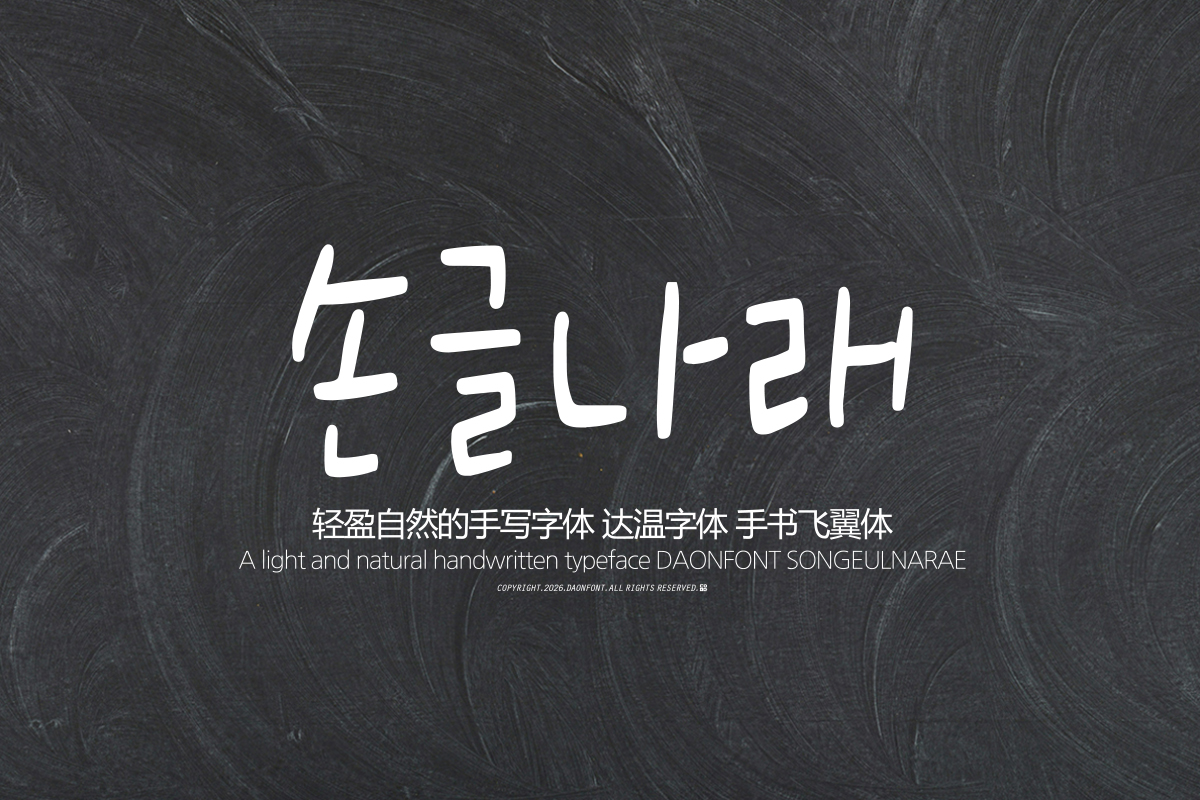
DAON SONGEULNALAE(M)
DaonFont 'SONGEULNALAE' is a calligraphy typeface created based on the handwriting of a calligrapher. It conveys a comfortable and warm atmosphere by highlighting the naturally flowing writing feel and soft stroke flow, while capturing the free rhythm and balance characteristic of calligraphy.